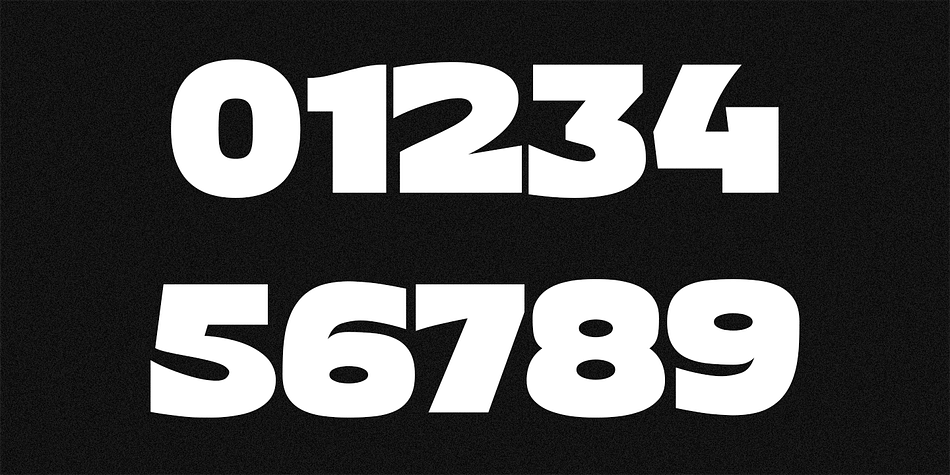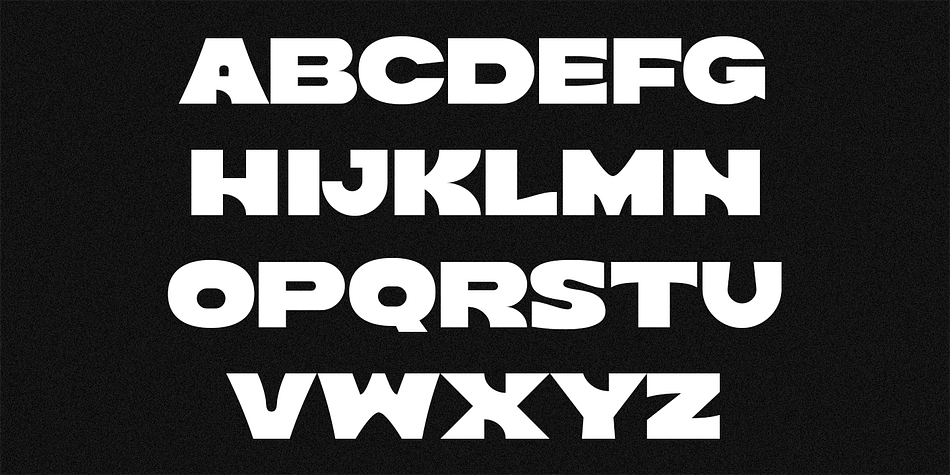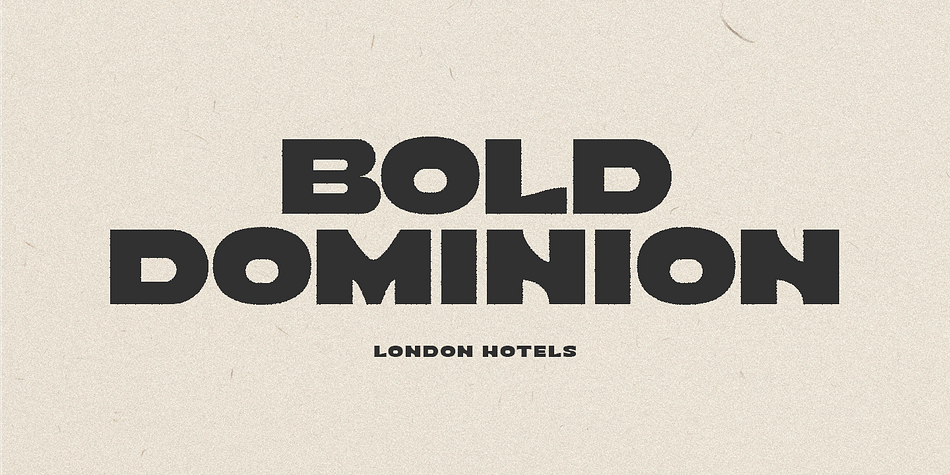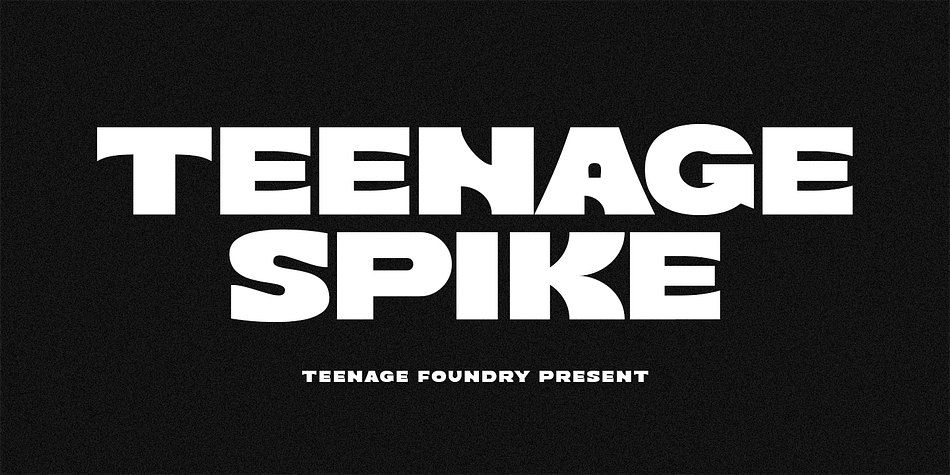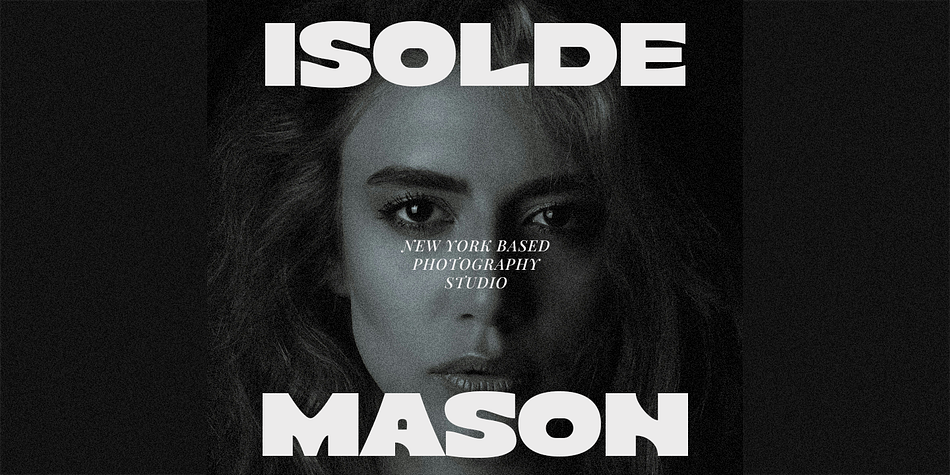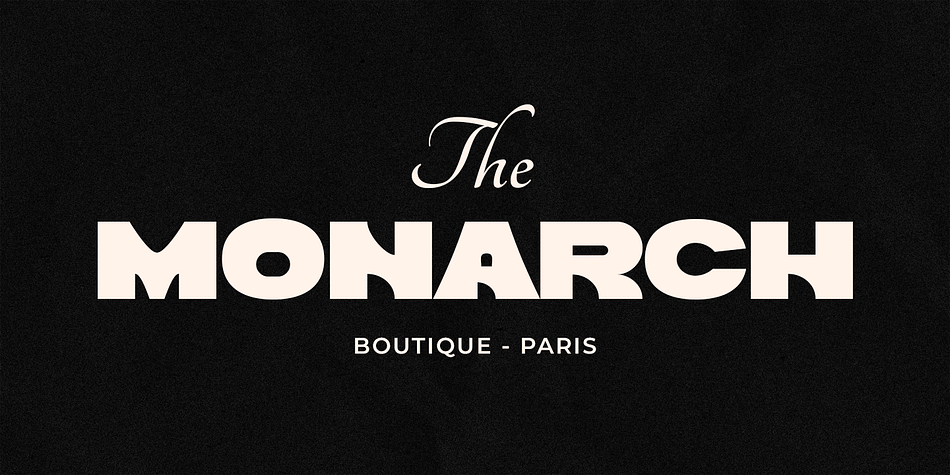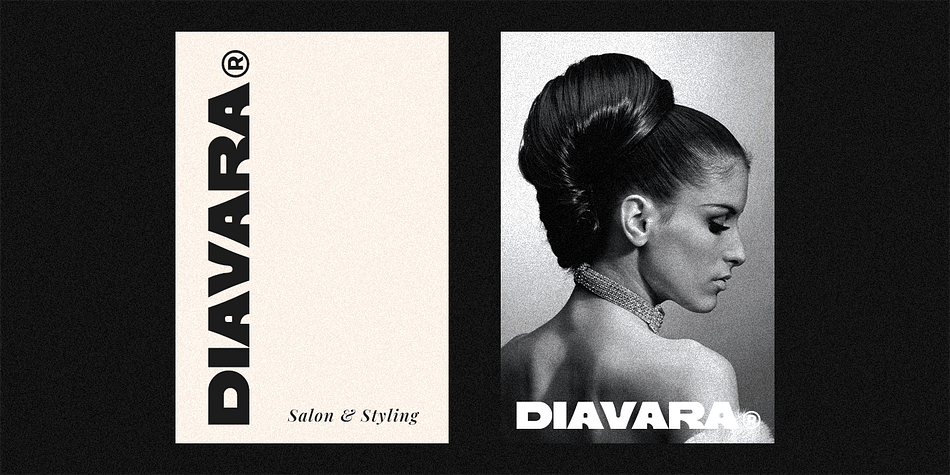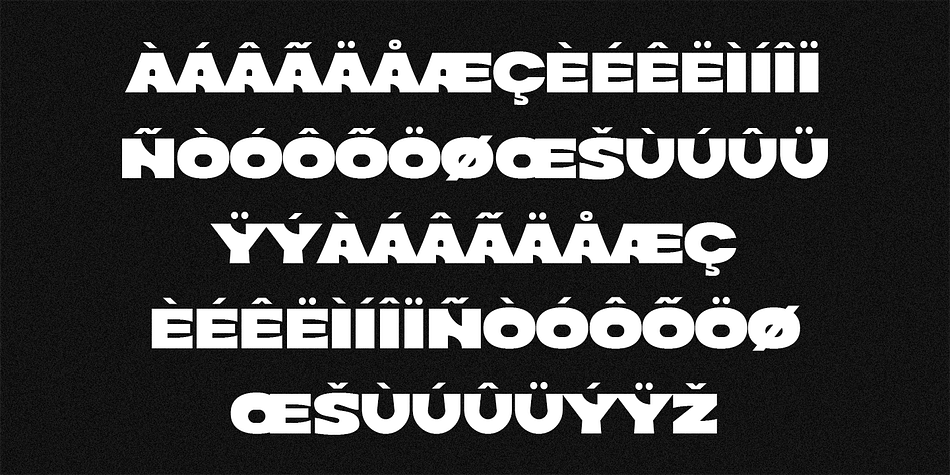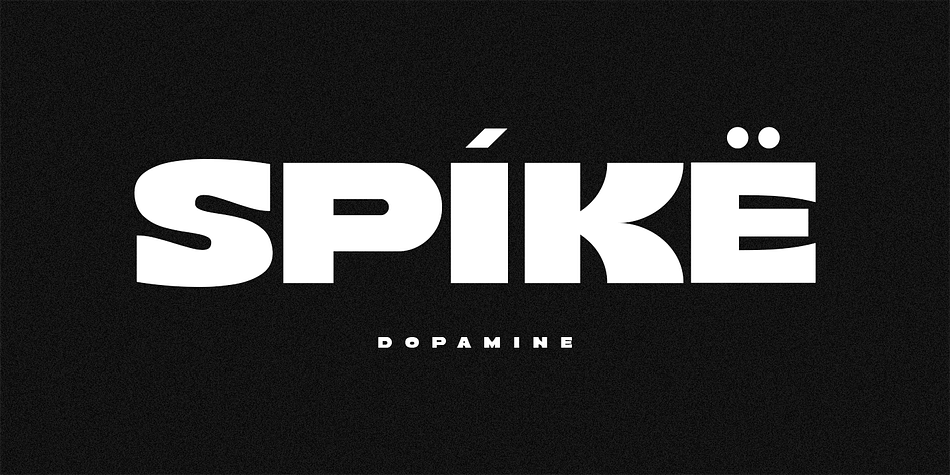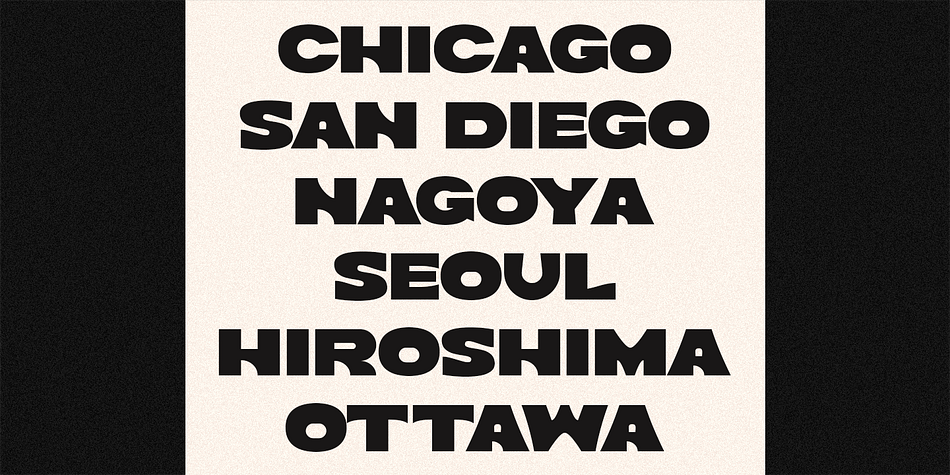
TEENAGE SPIKE
Teenage Spike is a display font family published by Teenage Foundry.
Teenage Spike – Sans Serif Font By Teenage Foundry
Teenage Spike is a bold and modern sans serif font that is perfect for headlines and titles. Its unique shape and contemporary aesthetic make it stand out from the crowd, allowing designers to create stunning designs that leave a lasting impression.